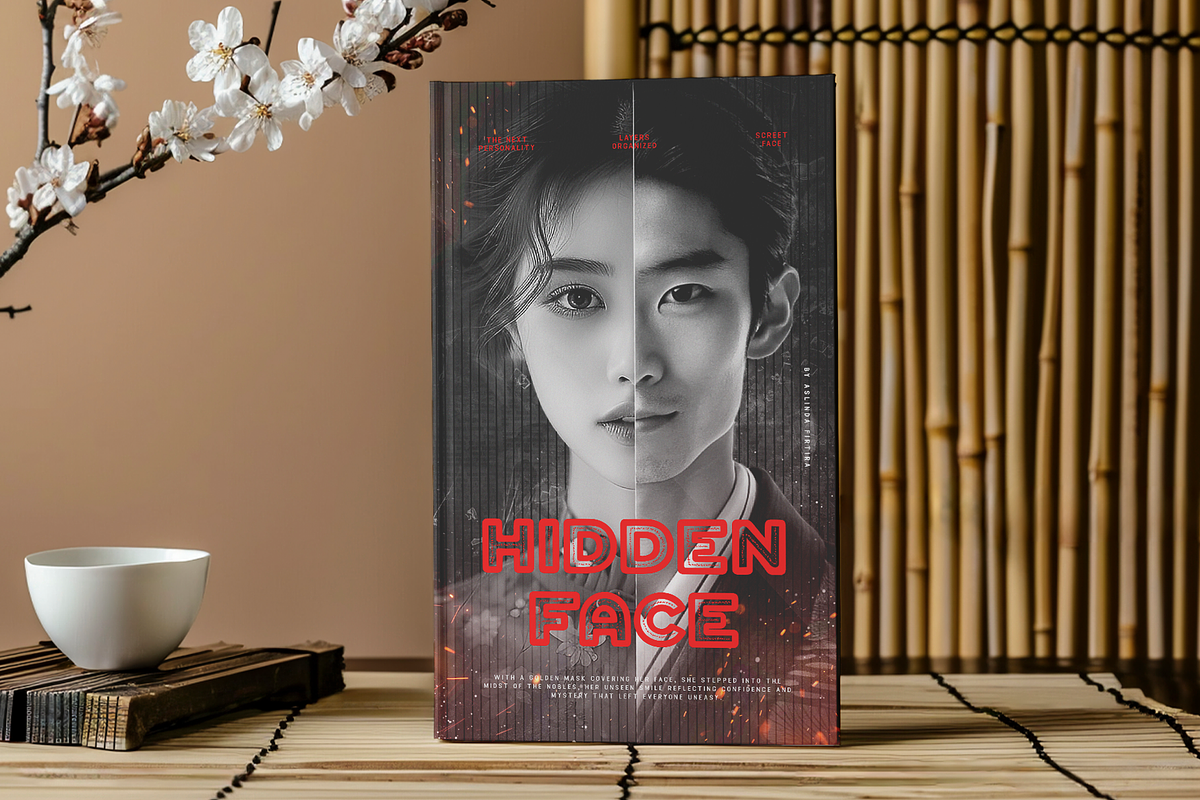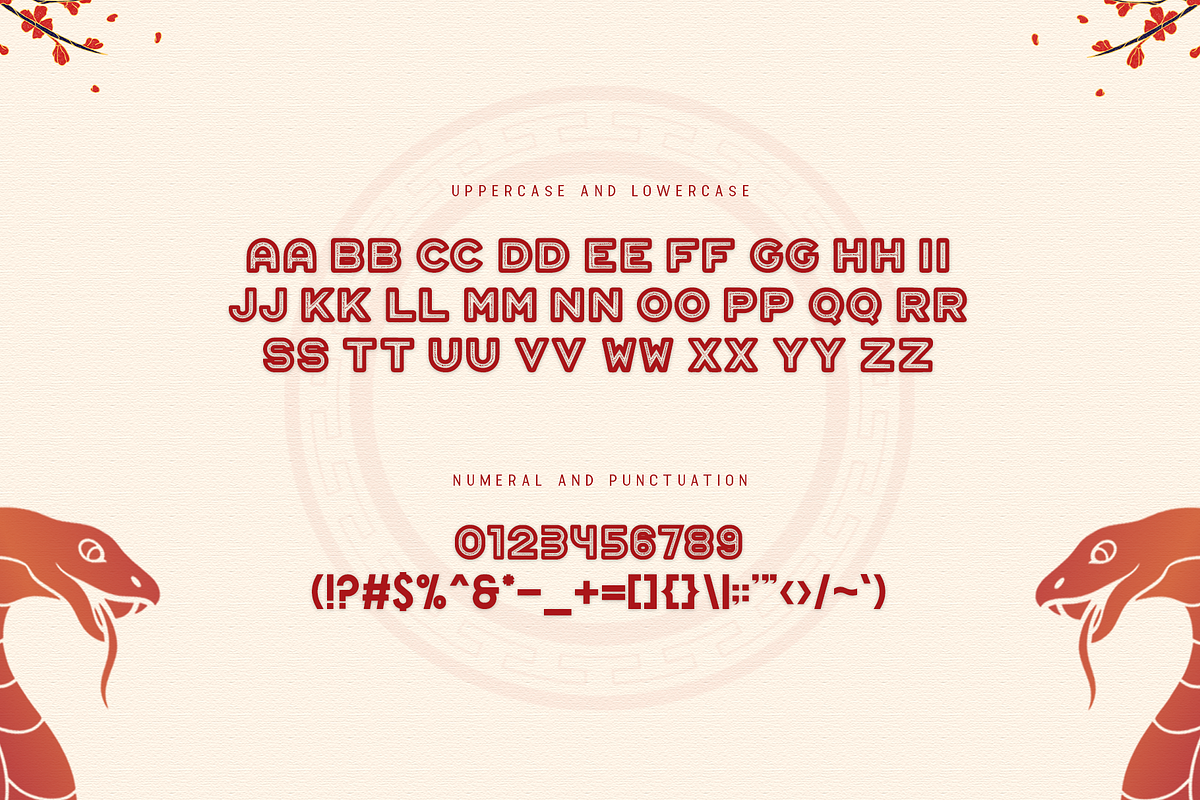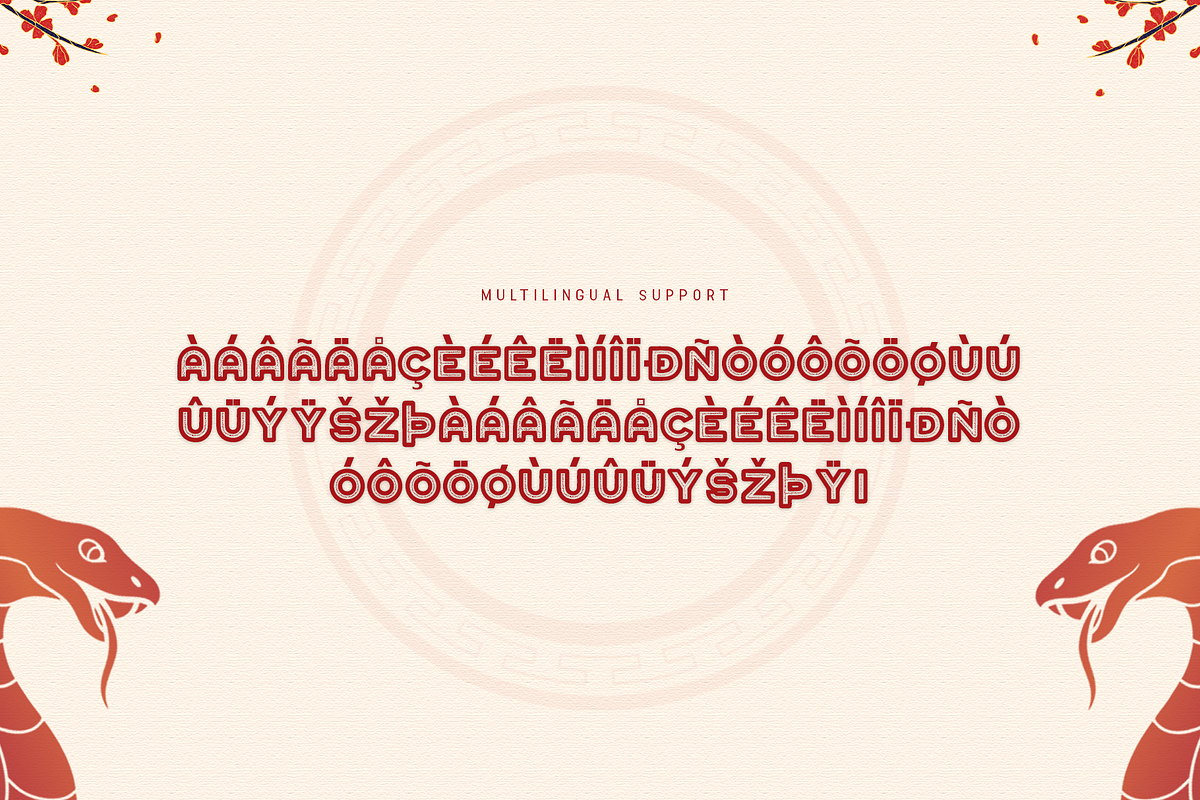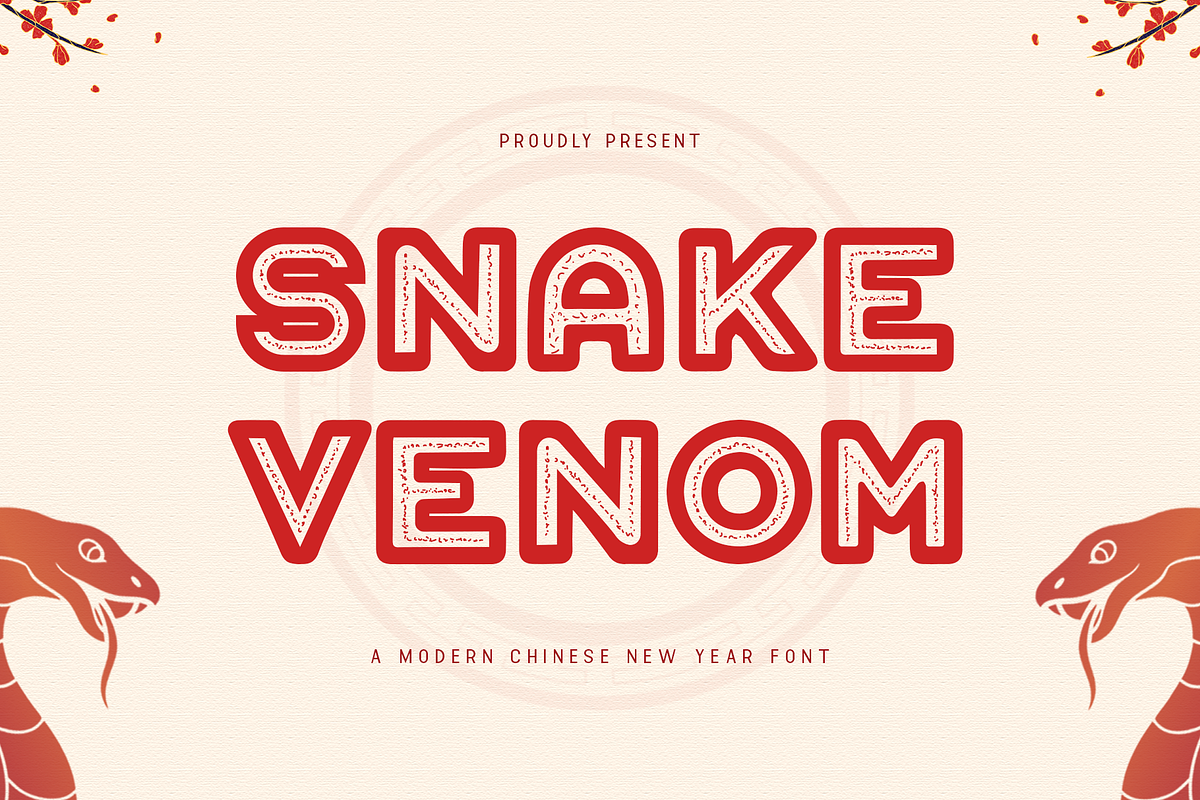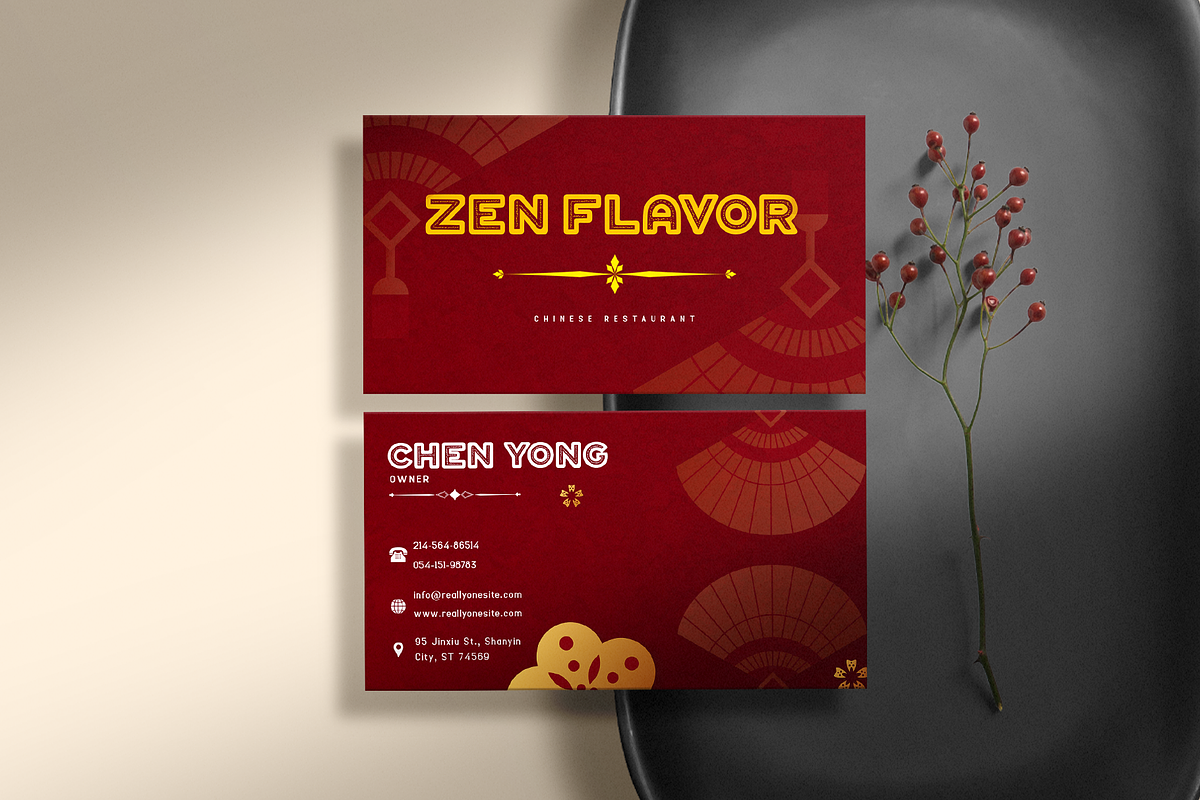
Snake Venom - Modern Chinese NewYear
Snake Venom - A Modern Chinese New Year Font
Unveil the striking allure of Snake Venom, a modern font inspired by the power and mystique of the serpent. Perfect for Chinese New Year celebrations, this font combines traditional Chinese motifs with sleek, contemporary design, making it ideal for festive and bold creations.
With its sharp, dynamic lines and fluid, venomous curves, Snake Venom brings intensity and sophistication to your designs. Whether you're crafting event posters, invitations, branding materials, or social media graphics, this font embodies the transformative energy of the Lunar New Year and the strength of the snake.
Snake Venom includes a full set of uppercase and lowercase letters, numerals, punctuation, and multilingual support, making it versatile for global design projects. Add a daring touch to your festive designs with this bold, serpentine-inspired typeface that stands out in any context.
Snake Venom is your go-to font for creating powerful, modern, and culturally rich Chinese New Year designs.